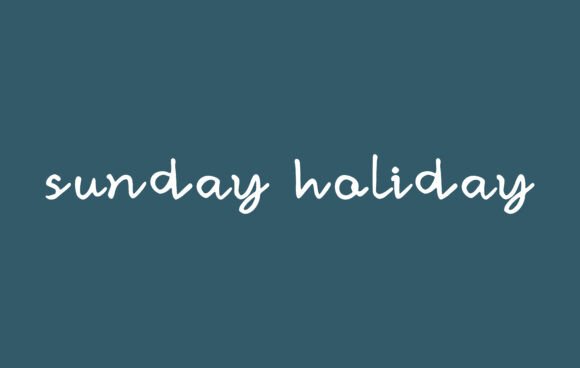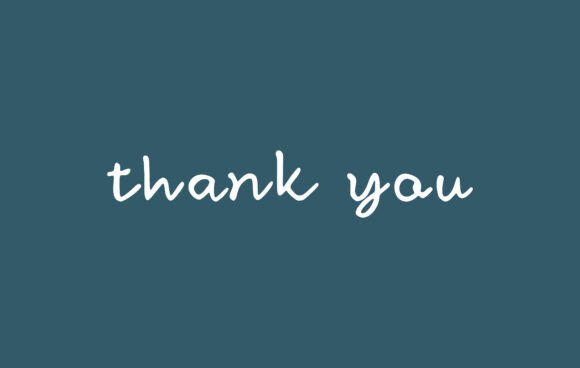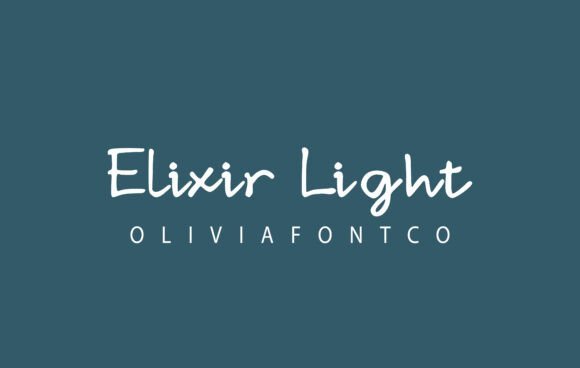
Introduction to Elixir Light Font
Elixir Light font is an authentic handwritten font with a romantic touch.
Why Choose Elixir Light Font?
Elixir Light Font offers exceptional quality and versatility, making it a valuable addition to your design toolkit. Whether you’re creating for personal projects or commercial use, Elixir Light Font delivers professional results.